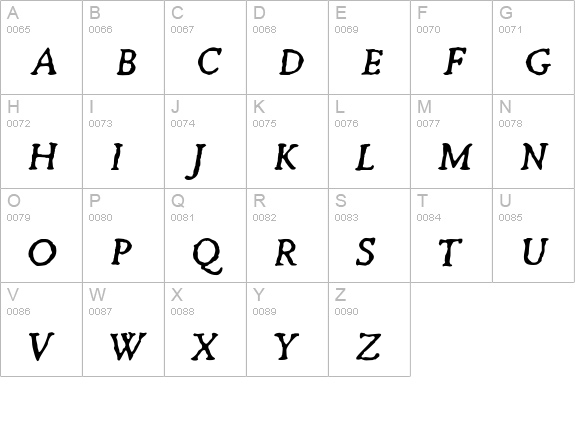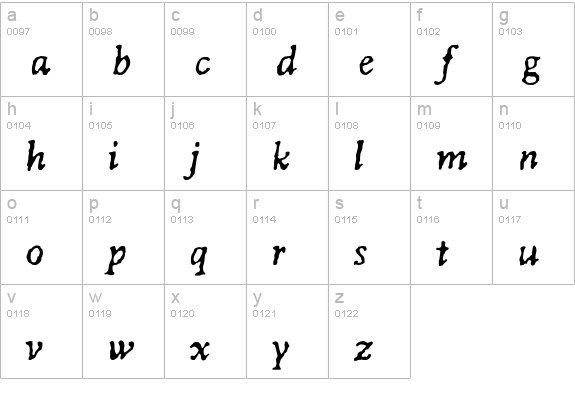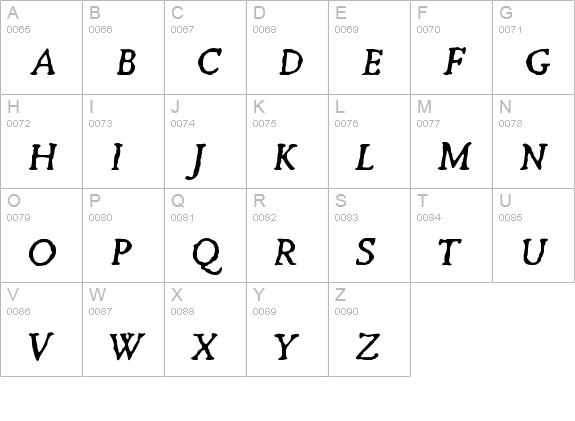
Irregular-Italic Font Details
Irregular-Italic is a distinctive, italic variant in the Irregular typeface family \xE2\x80\x94 well suited to design and typography projects.
Introducing the captivating Irregular-Italic font, a unique and bold typeface that is sure to make a lasting impression. With its irregular, yet elegant letterforms, this font adds a touch of artistic flair to any design project. The Irregular-Italic font is an excellent choice for those seeking a font that breaks away from traditional norms. Its slanted and distorted letter shapes create a sense of movement and intrigue, making it perfect for eye-catching headlines, edgy logos, and attention-grabbing posters. This font is not only visually striking but also highly versatile. It can be used across a wide range of design applications, from branding and advertising to social media graphics and website design. Whether you're aiming for a rebellious and unconventional look or simply want to inject some personality into your project, the Irregular-Italic font is sure to deliver. One of the best aspects of the Irregular-Italic font is that it is free. That's right – you can download this stunning typeface at no cost from FontsMarket.com. This means that you can unleash your creativity without breaking the bank, making it an ideal choice for both professional designers and hobbyists alike. So why wait? Discover the limitless possibilities of the Irregular-Italic font and elevate your designs to new heights. Download it today from FontsMarket.com and embark on a typographic adventure that is sure to captivate and inspire.